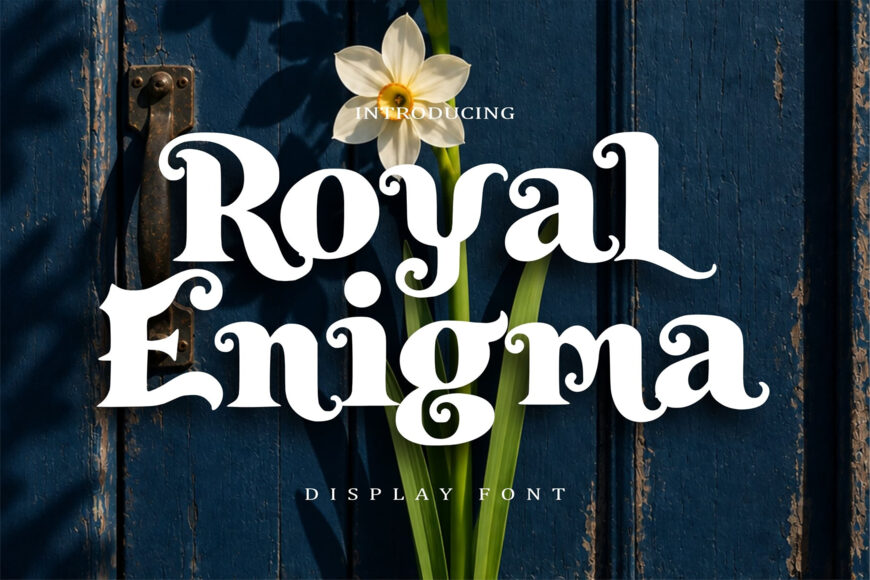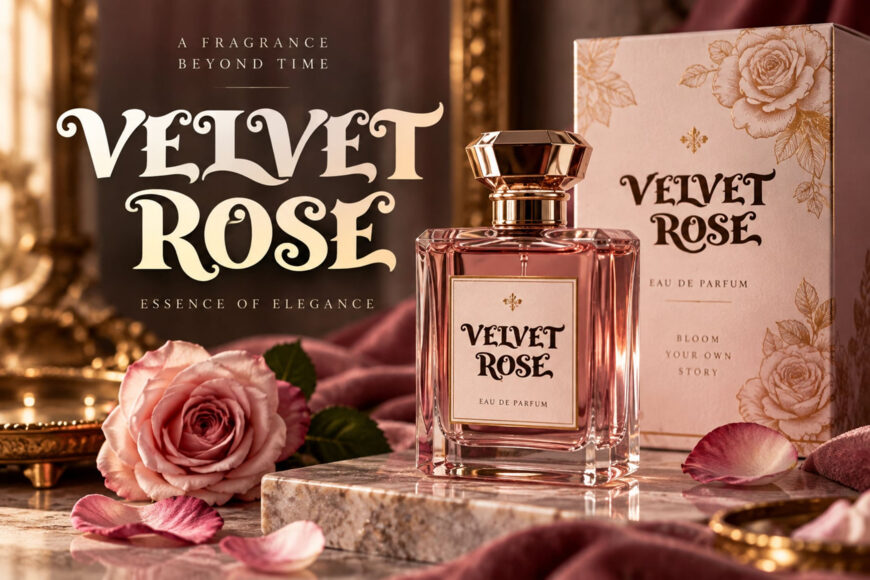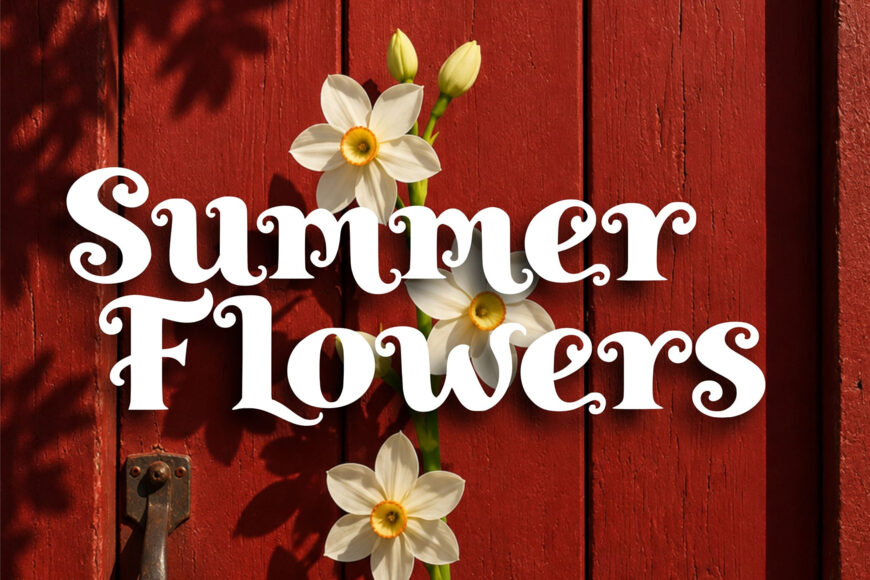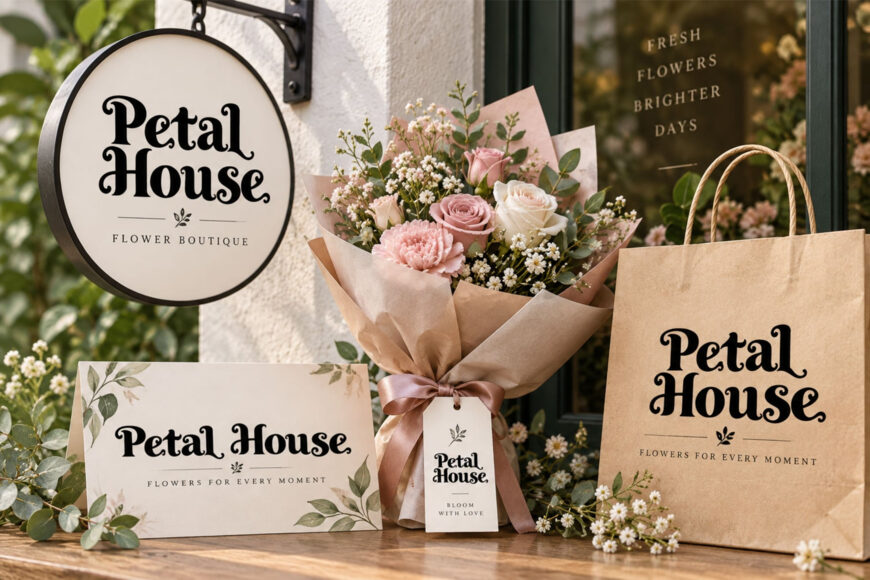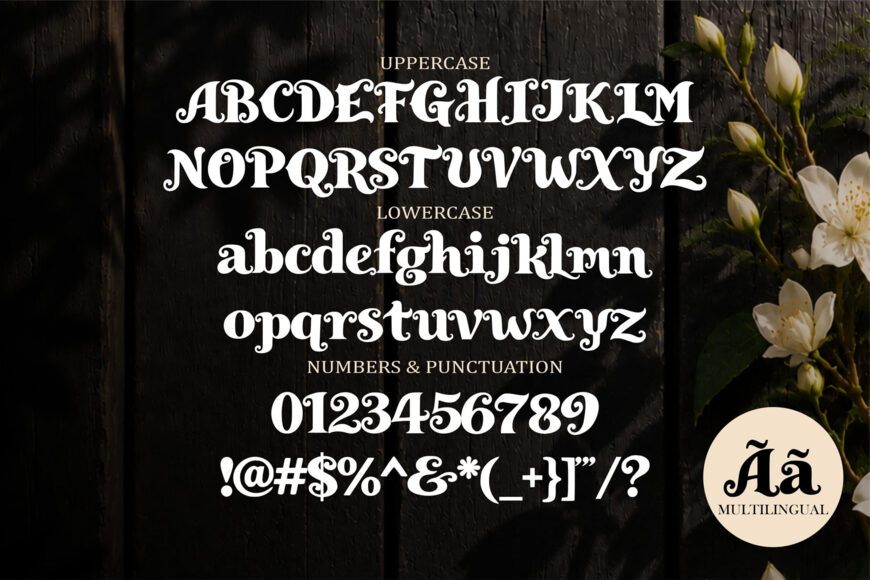
Royal Enigma is an elegant serif font designed by Cikareotype Studio, combining classic sophistication with a refined, luxurious character. Its stylish letterforms make it a great choice for fashion branding, logos, magazines, invitations, wedding stationery, and editorial designs. With its timeless appearance and versatile style, Royal Enigma adds a polished and distinctive touch to both modern and classic creative projects.